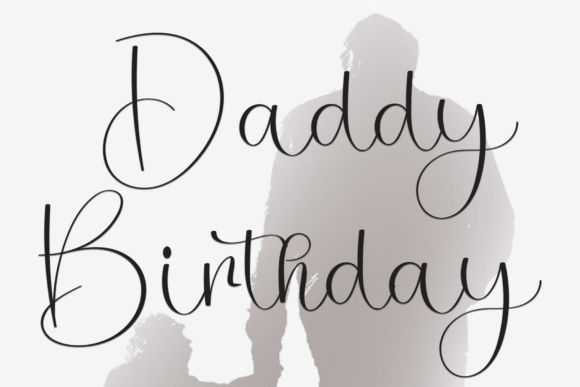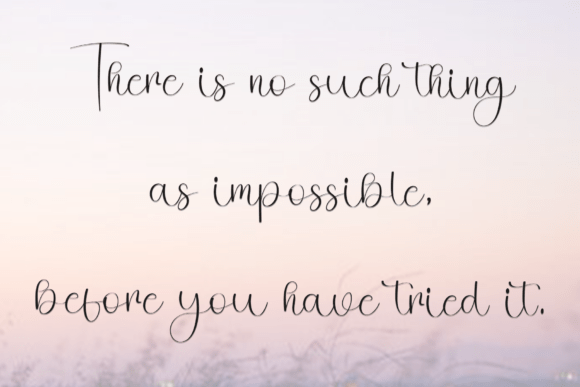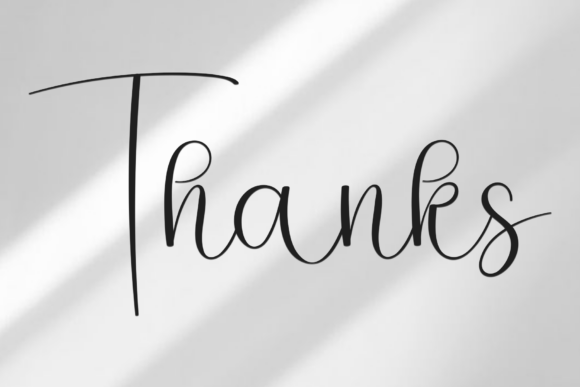
Introduction to Holiday Mountain Font
Holiday Mountain is a modern calligraphy typeface that blends elegance with a playful handwritten charm.
Featuring fluid letterforms, graceful curves, and delicate stroke contrasts, this font delivers a stylish balance of sophistication and approachability Its tall ascenders and smooth, flowing lines create a light and airy feel, making it perfect for wedding invitations, branding, social media graphics, and editorial layouts.